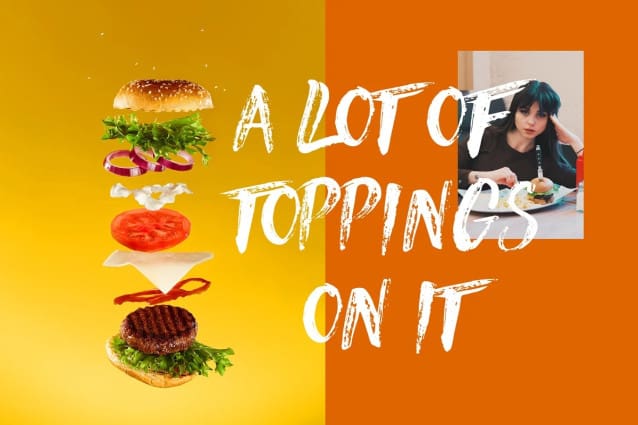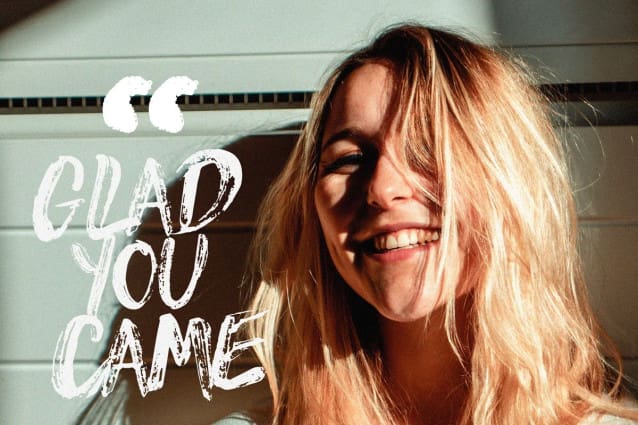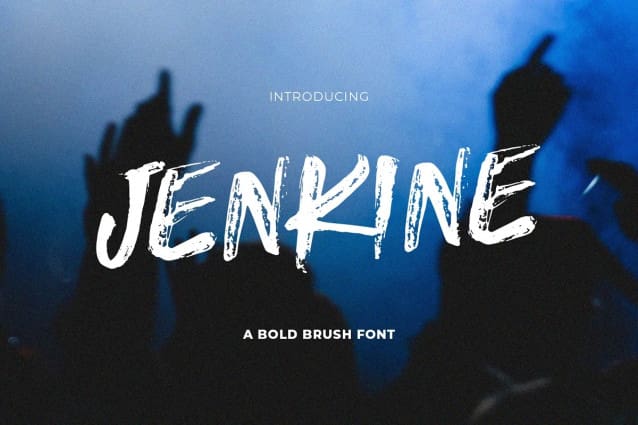
Jenkine Brush Font
Jenkine Brush Font, casual and natural written handwritten brush strokes. Letters are made with brush on paper then scanned carefully drawn into vector format.
This typeface is ideal for use in any professional project, such as blog titles, posters, wedding elements, t-shirts, clothing, book covers, business cards, greeting cards, branding, merchandise etc.